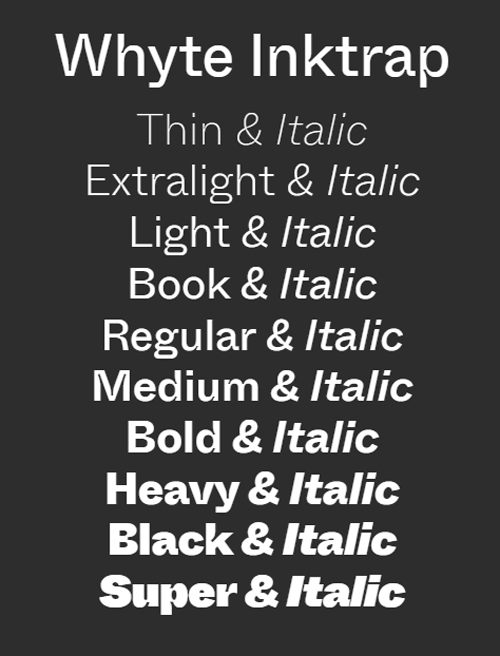
Whyte Inktrap - 20 Styles Font Family
- Fabian Harb drew the first version of ABC Whyte years ago, after coming across a type sample from the early heyday of grotesques during a bout of archival digging. A few years later, we noticed that the design had aged gracefully, and so our lead designer Erkin Karamemet took up the task of exploring new possibilities for it. Fourteen months of dedicated work and 27,040 characters later, two related-yet-visually-distinctive font families materialized: ABC Whyte and ABC Whyte Inktrap. ABC Whyte has smooth and sharp transitions, while Inktrap has curt yet also curvy ink traps at its joints. Ink traps were of course necessary during the hot type era, in order to improve printing quality. With the emergence of variable font technology, we were intent on reviving and rethinking the idea of ink traps in the context of new tools. Both families consist of 10 weights with corresponding Italics, amounting to 40 font styles in total. Each also features a wide range of international punctuation and currency signs.